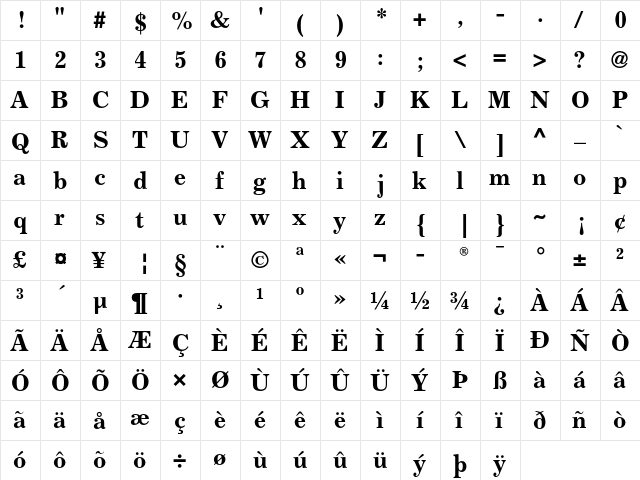
Excelsior Bold
Design Context for Excelsior Typeface
Excelsior offers clean, dependable letterforms without strong stylistic allegiance, making it a practical choice for designers who need flexibility. The heavy weight commands attention and anchors typographic hierarchies.